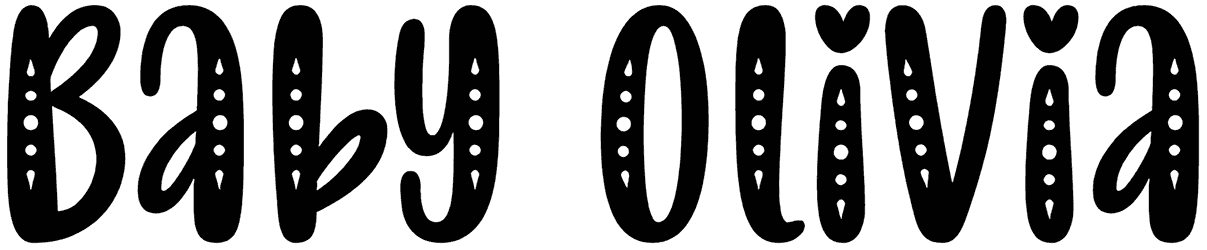
Baby Olivia Font
Bringing together two senses of cuteness and cartoonish design isn’t that hard if you choose the right font like Baby Olivia. This cartoon font has a nostalgic touch like old cartoon designs and brings a delightful feeling to your content.
With a font like Baby Olivia without any lack of characters, you’re able to create unbelievable posters, cartoons, flyers, banners, and t-shirts. If you want more choices with the same childish feel, then check out our libraries.